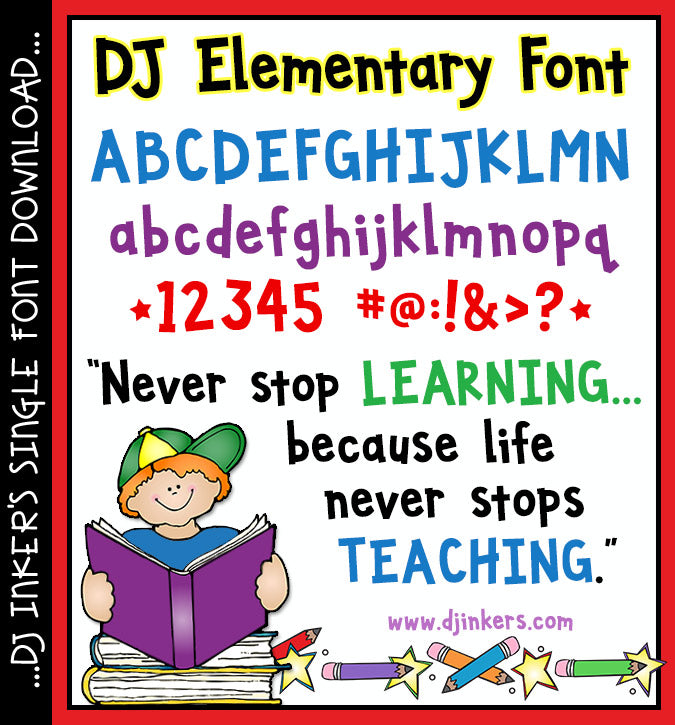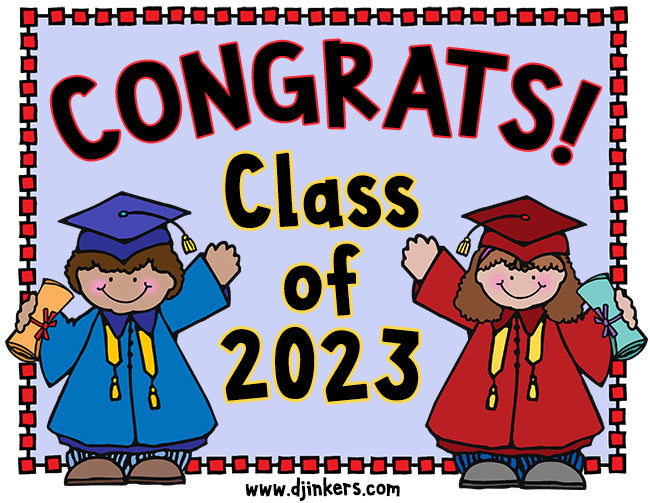
DJ Elementary Font Download
Ready to type-up a smile? Make your text stand out with
this bold, fun font by DJ Inkers, sure to be Elementary in your collection!
Excellent for teachers, project titles and headlines, parties, posters,